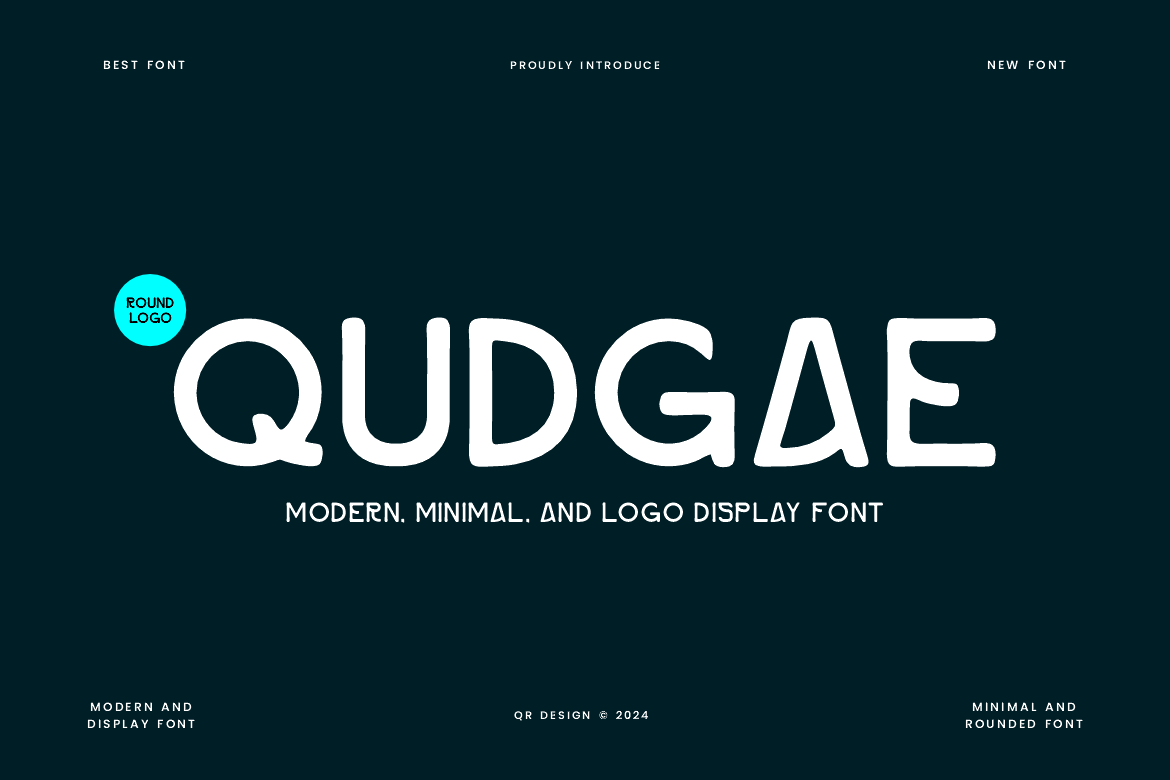
Qudgae - Round & Logo Font
Qudgae Font is a bold and authentic display font. The font is suitable for any branding project like poster, logo, sport, and many more. Outstanding in a wide range of contexts.